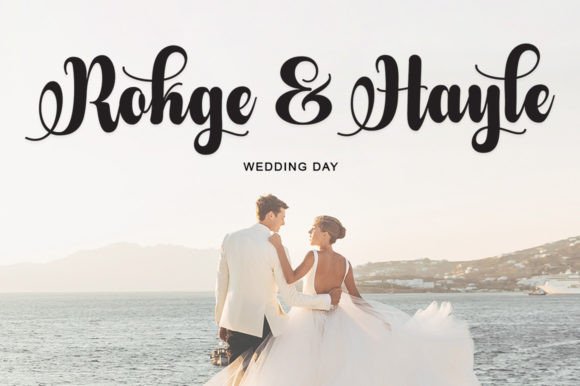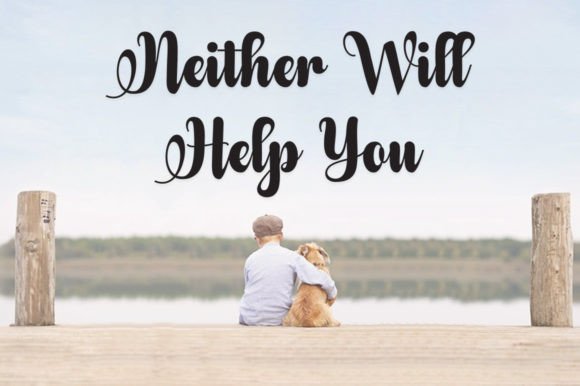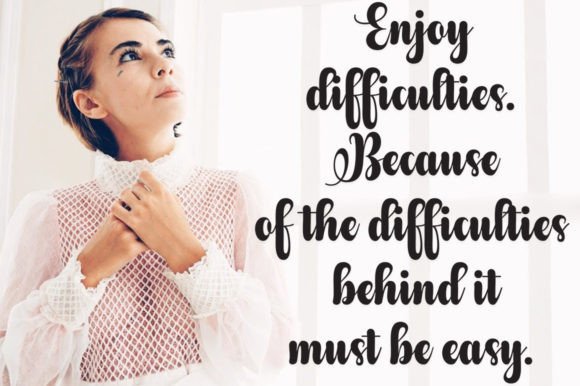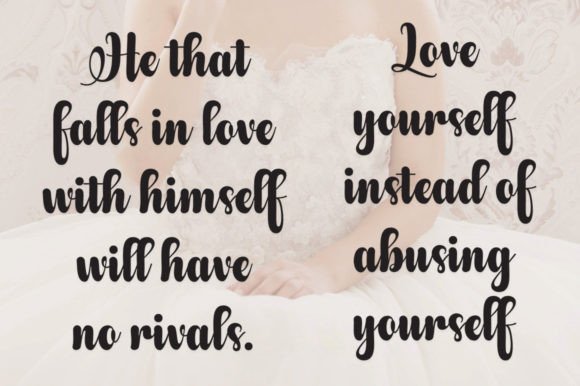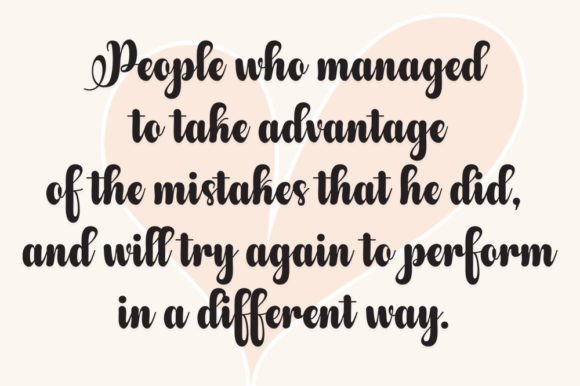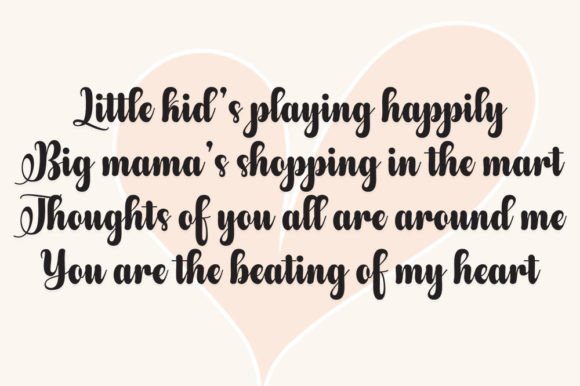
Introduction to Hirly Font
As a designer, have you ever been working on a project and suddenly, the perfect font pops into your mind? It’s that magical moment when all the elements come together, and your design starts to shine. For me, that moment happened when I stumbled upon the beautiful Hirly Font. Its smooth, elegant, and flowing handwritten style is perfect for adding a touch of personality to any creative project.
The Hirly Font is more than just a pretty face; it’s a valuable resource for designers looking to elevate their designs with high-quality typography. With its PUA-coded glyphs and swashes, you can easily access the full range of characters and create stunning designs with a transparent background. Whether you’re working on a personal project or a commercial design, the Hirly Font is an excellent choice for any designer looking to add a unique touch to their work.
Key Features of Hirly Font
- High-quality, unique font design suitable for creative projects and designs that require a modern aesthetic.
- Includes a range of characters, including uppercase and lowercase letters, numbers, and special characters, making it a versatile design resource.
- Designed to be scalable, making it suitable for use in various design contexts, from small text to large headlines.
Honest Review: Hirly Font
As a designer, I’m always on the lookout for high-quality design resources that can elevate my creative projects. Recently, I stumbled upon the Hirly Font, and I’m excited to share my honest review with you.
- ✨ Beautiful and modern design: The Hirly Font boasts a sleek and sophisticated look that’s perfect for a variety of creative projects.
- ⚠️ Limited font weights: While the Hirly Font is a great addition to any design project, it would be even more versatile with additional font weights.
- ⚠️ Not ideal for body text: Due to its modern and sleek design, the Hirly Font may not be the best choice for body text in longer-form content.
Overall, I’m impressed with the Hirly Font and its potential to elevate my creative projects. While it has some limitations, its beautiful design and transparent background make it a valuable addition to any design resource library.
Tips for Getting the Most Out of Hirly Font
Hirly Font is ideal for creating graphics and designs for social media, marketing materials, and presentations. Its high-quality design and transparent background make it perfect for creative projects and designs. As a free download, Hirly Font is an excellent design resource for designers and artists.